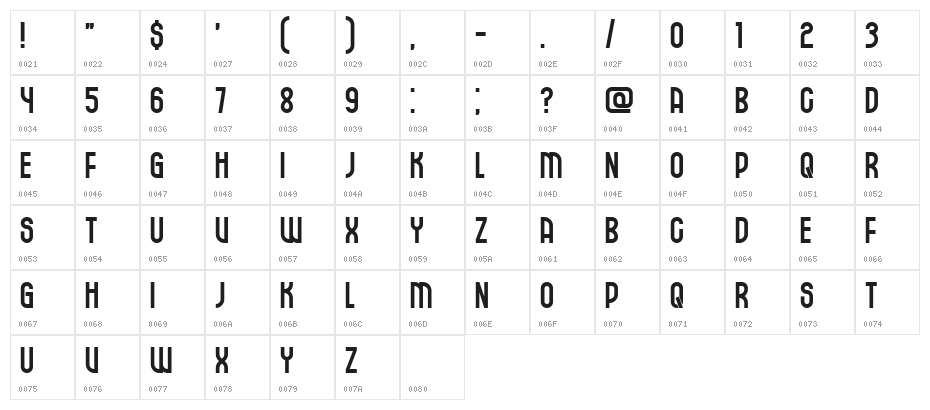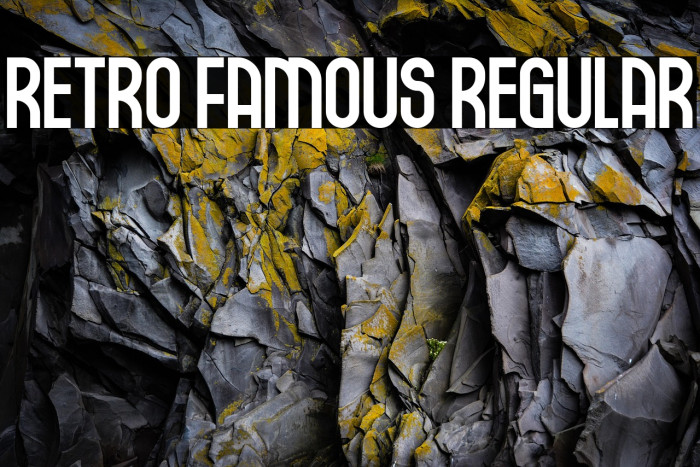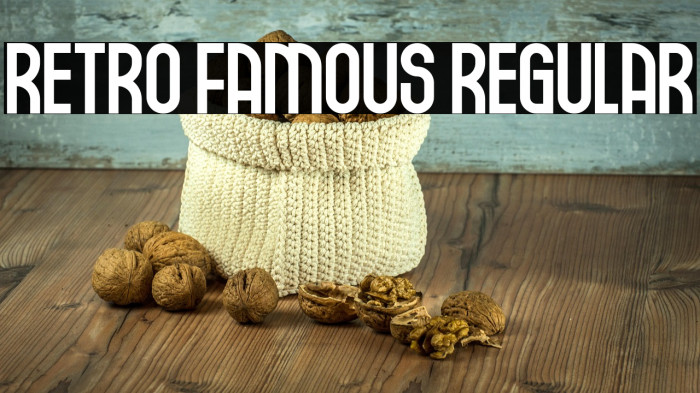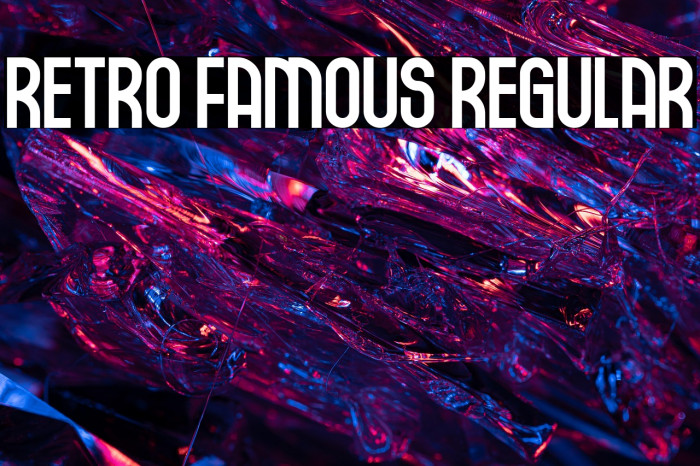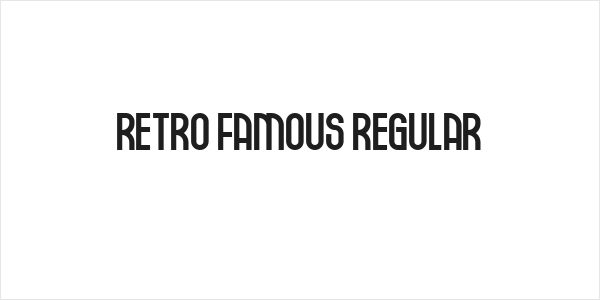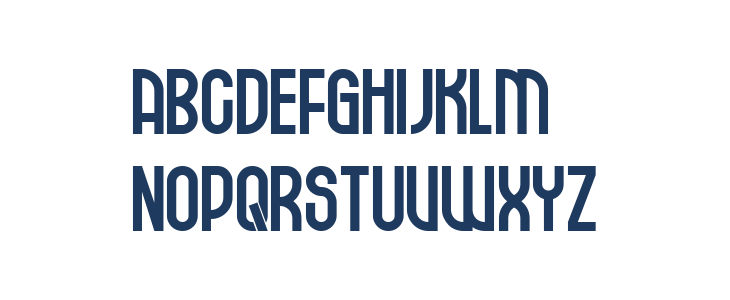
Retro Famous Regular Font
Retro Famous Regular Description
This font features a bold, geometric design with a distinctly retro flair. The characters are tall and narrow, with a uniform stroke width that gives them a clean and modern appearance. The uppercase letters have a unique style, with some characters featuring unexpected angles and cuts that add a touch of uniqueness. The numbers and special characters maintain the same geometric style, ensuring consistency across all elements. This font's design is reminiscent of mid-20th-century typography, making it ideal for projects that aim to evoke a sense of nostalgia while maintaining a contemporary edge.
| Width | Condensed |
| Overall Style | Retro, Modern |
| Proposed Projects | Ideal for vintage-themed posters, branding, and logo design. |